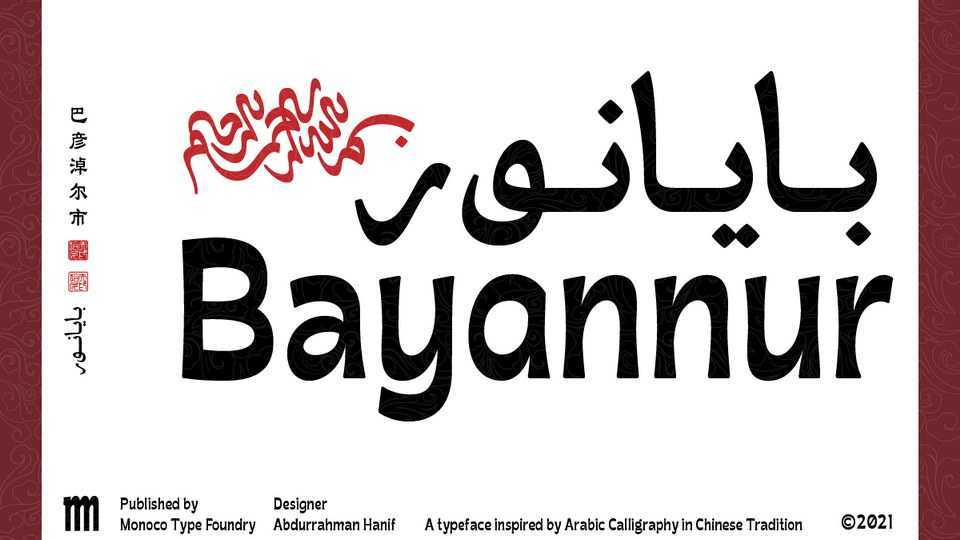
Download Bayannur font, a typeface inspired by Arabic Calligraphy in Chinese Tradition. Bayannur font has extensive Latin script support with many ligatures and stylistic sets, as well as Cyrillic and unique Arabic design with contextual alternates and many ligatures.
Designer: Monoco Type Foundry